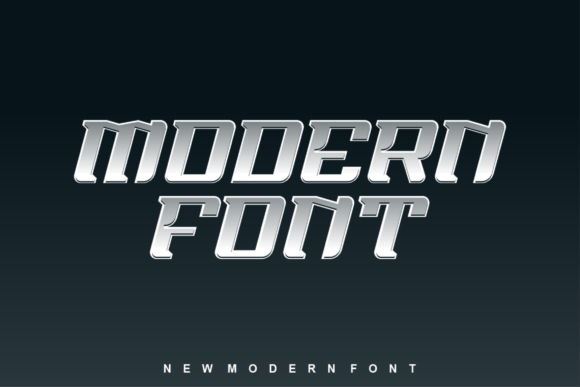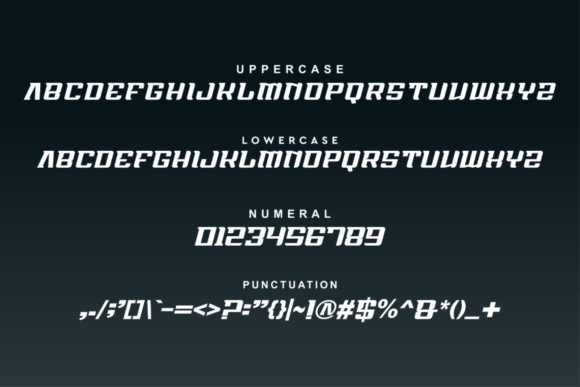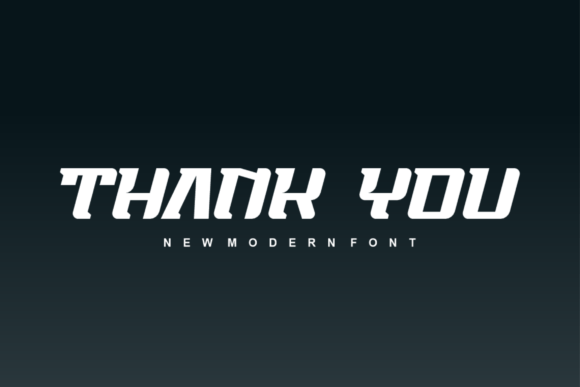
Introduction to Quaruz Font
Do you remember the moment when a perfect font choice transformed your design project? It’s that feeling when everything clicks into place, and your creative vision comes alive. For designers, finding the right font can be a game-changer. This is where Quaruz Font comes in – a modern and bold display font that’s about to revolutionize your creative endeavors.
Quaruz Font embodies authenticity and assertiveness, making it the perfect addition to any project. Whether you’re working on a logo, social media graphics, or a poster, this high-quality font is sure to elevate your design. Plus, with a transparent background, you can easily layer it over any image or color, giving you endless possibilities for creative expression.
What sets Quaruz Font apart is its versatility. It’s free to download, making it an accessible design resource for both professionals and hobbyists. So, why settle for a generic font when you can add some real punch to your project with Quaruz Font?
Key Features of Quaruz Font
- Quaruz Font is a versatile design element that can be used for a wide range of creative projects, from branding to editorial design.
- Unique characteristics include a modern and sleek aesthetic, with a range of stylistic alternates and ligatures to add depth and interest to your designs.
Honest Review: Quaruz Font
I recently stumbled upon the Quaruz Font, and I must say it’s been a pleasant discovery. This font has been a game-changer for my creative projects, offering a unique and modern aesthetic that’s perfect for design enthusiasts.
- High-quality design: The Quaruz Font boasts crisp and clean lines, making it ideal for a variety of creative projects.
- Limited font styles: While the Quaruz Font offers a unique look, it may not be suitable for projects that require a wide range of font styles.
- Not ideal for small text: The font’s bold design may not be suitable for small text sizes, making it less effective for certain design applications.
Overall, I’m impressed with the Quaruz Font and would recommend it to designers looking for a modern and unique design resource. Its high-quality design, transparent background, and free download make it a valuable addition to any design toolkit.
Tips for Getting the Most Out of Quaruz Font
Use the Quaruz Font on a transparent background to create a unique and eye-catching design.
Combine the Quaruz Font with other high-quality design resources to create a stunning visual effect.
The Quaruz Font is perfect for:
Graphic design projects
Logo design
Branding
Marketing materials